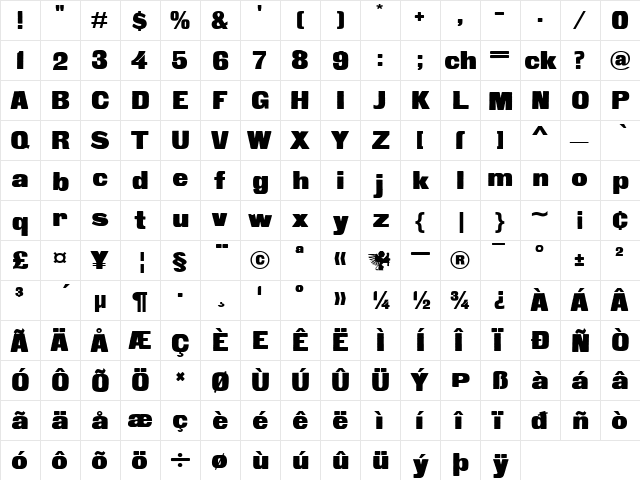
Fette Steinschrift Regular
| Designer | Dieter Steffmann |
Design Context for Fette Steinschrift Typeface
Fette Steinschrift takes a measured approach to typography — its balanced proportions and neutral character make it a reliable workhorse for both digital and print work.
Pro Tip: Use Fette Steinschrift in both headline and body roles to test its range before committing to a single application.